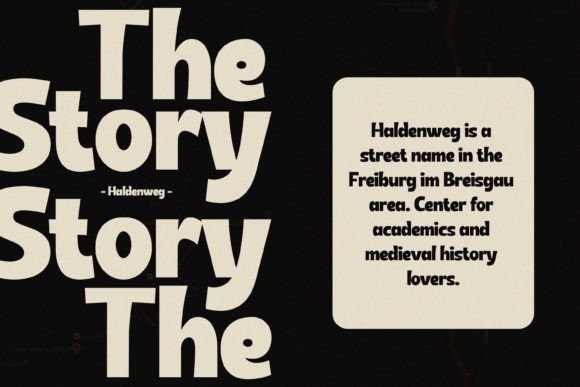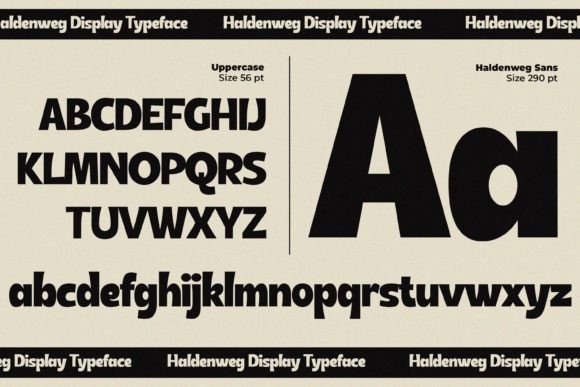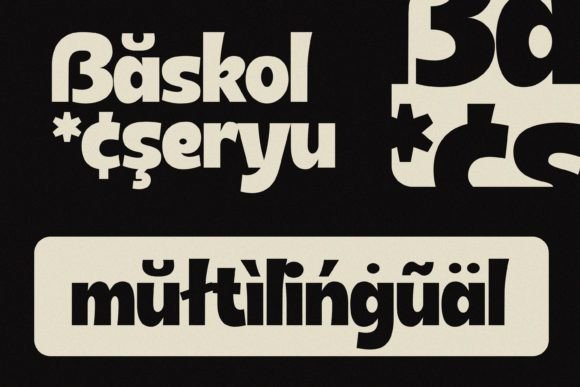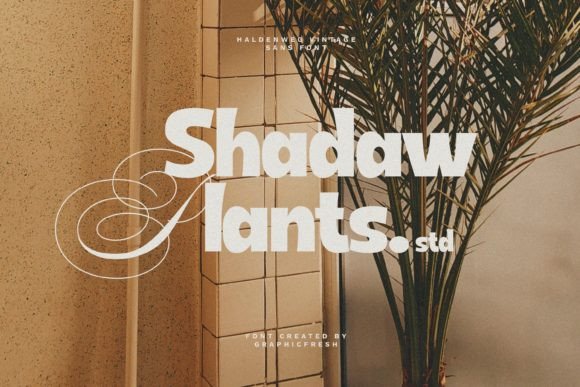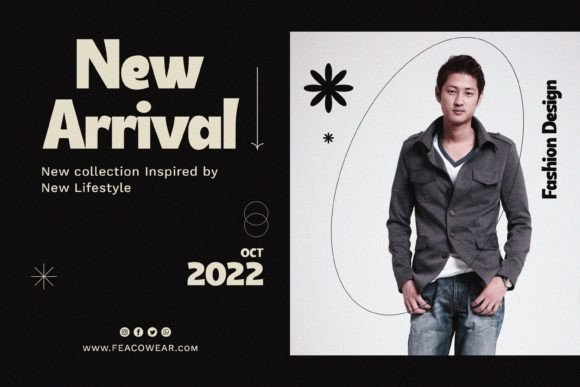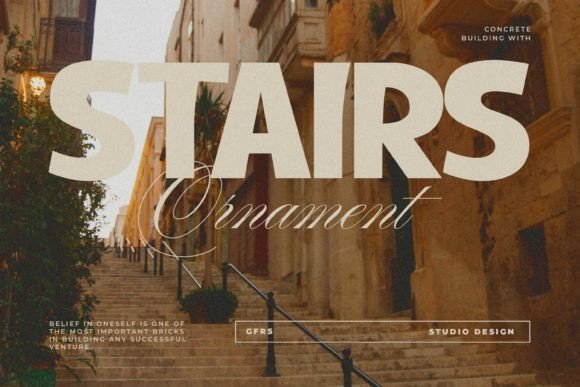
The Nostalgia of Typography
Do you ever find yourself scrolling through old VHS tapes or vinyl records, reminiscing about the good old days of music and movies? For designers, a similar feeling can be triggered by the sight of classic typographic styles, evoking memories of the design industry in the 80s and 90s. It’s a time when bold, sans-serif fonts ruled the world of graphic design.
Enter the Haldenweg Font, a bold retro sans-serif that embodies the spirit of that bygone era. This elegant font is designed to take you back in time, while still maintaining a modern and sleek impression. Whether you’re working on a retro-themed project or simply want to add some nostalgic flair to your designs, the Haldenweg Font is an excellent choice.
Haldenweg Font Key Features
- Font Family: Haldenweg is a sans-serif font family.
- Unique Characteristics: Features a distinctive, modern design with clean lines, rounded edges, and a friendly feel.
Haldenweg Font Review
Overall, I was impressed with the Haldenweg Font. It has a unique, modern design that could work well in a variety of applications.
- Distinctive letterforms: The Haldenweg Font has some beautiful, unique letterforms that can add visual interest to a design.
- Good for headlines: The font is quite legible and can work well in larger font sizes, making it a good choice for headlines or titles.
- Clean lines: The font has clean lines and a simple design, which can help to create a sense of clarity and focus in a design.
- Limited font sizes: While the font works well in larger sizes, it can become quite difficult to read at smaller sizes.
- Lack of versatility: The font’s unique design may not be suitable for all types of projects or designs.
- No italics: Unfortunately, the Haldenweg Font does not include italics, which can be a limitation for certain designs.
Overall, the Haldenweg Font is a solid choice for designers looking for a unique, modern font. While it has some limitations, it can be a great addition to a design toolbox.
Tips for Getting the Most Out of Haldenweg
To get the most out of Haldenweg, use it for designs that require a clean and modern look. Pair it with simple backgrounds and bold colors to make the most of its unique characteristics.
Haldenweg is commonly used in logos, brochures, and business cards. It is also used in digital products, such as mobile apps and websites, for its modern and clean look.